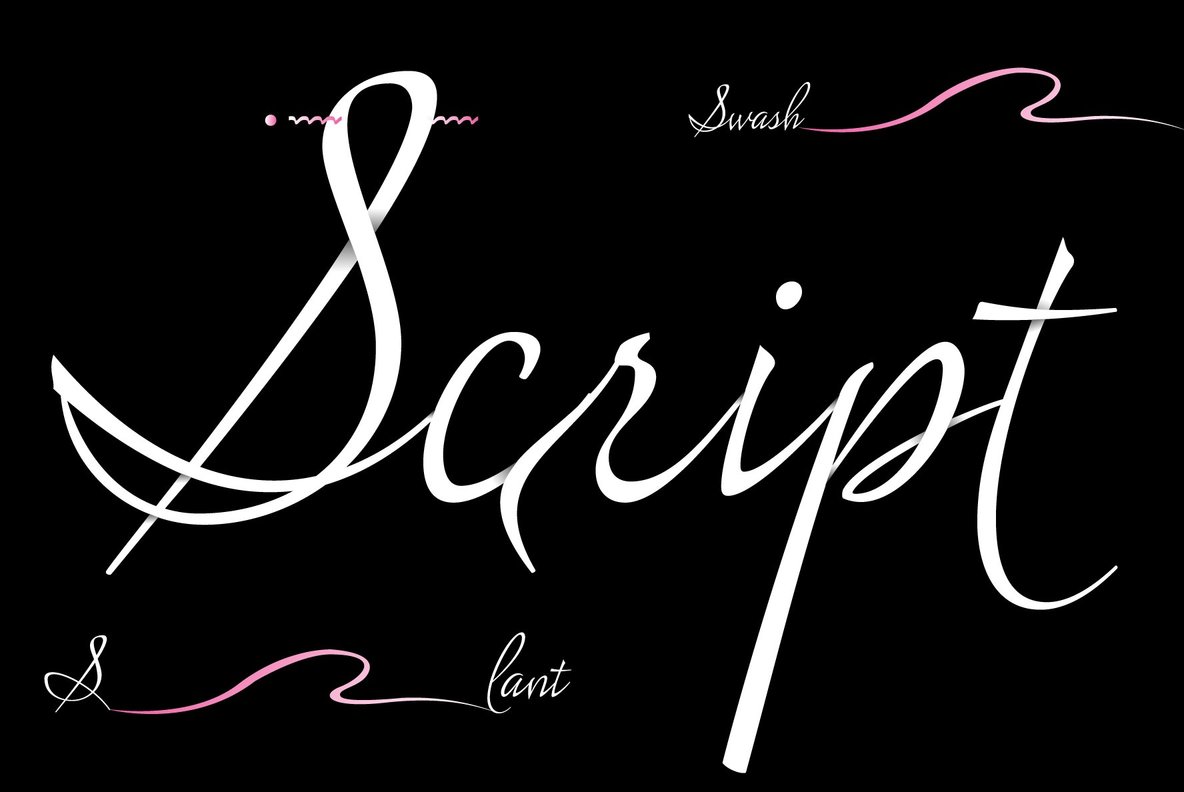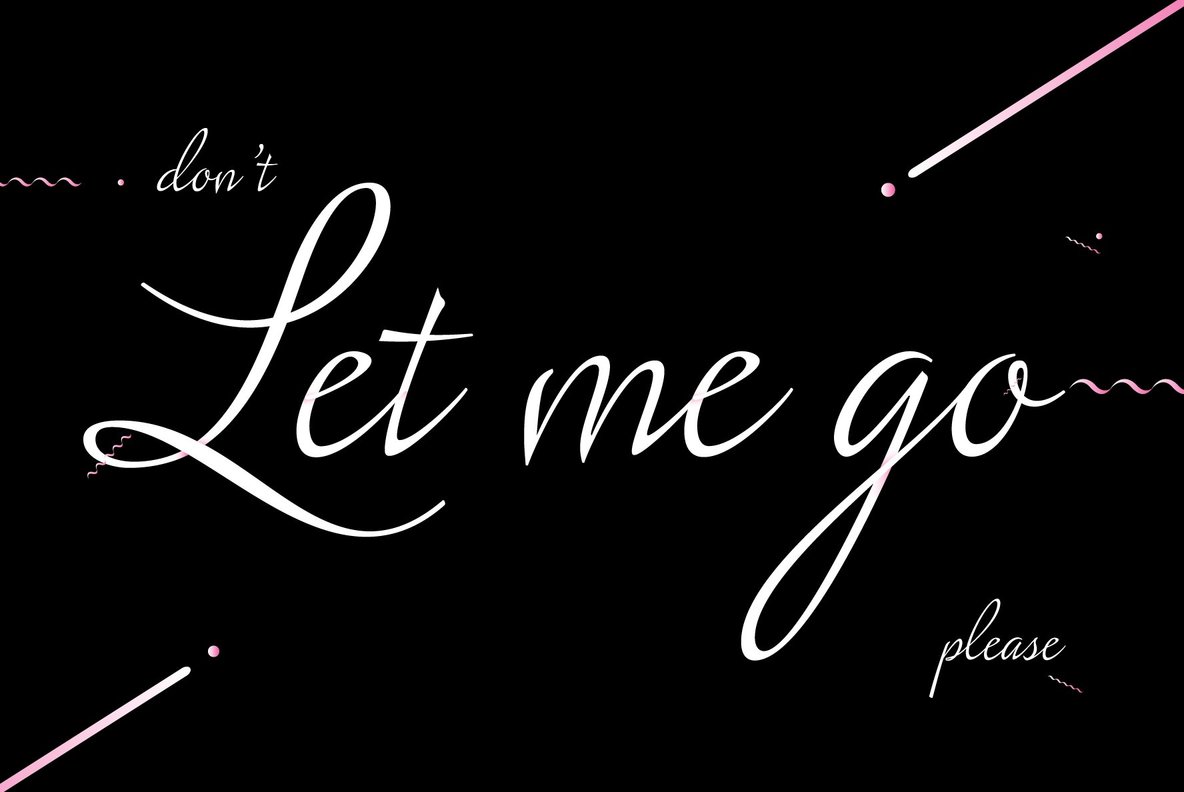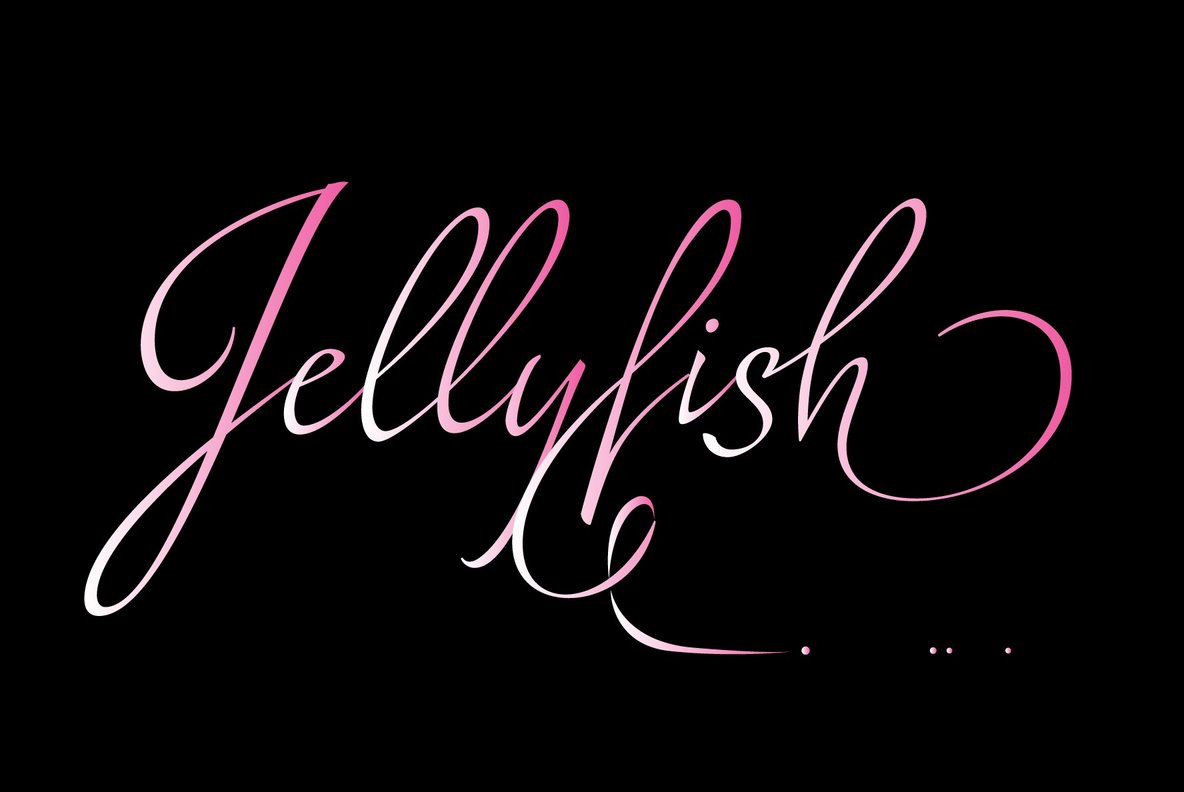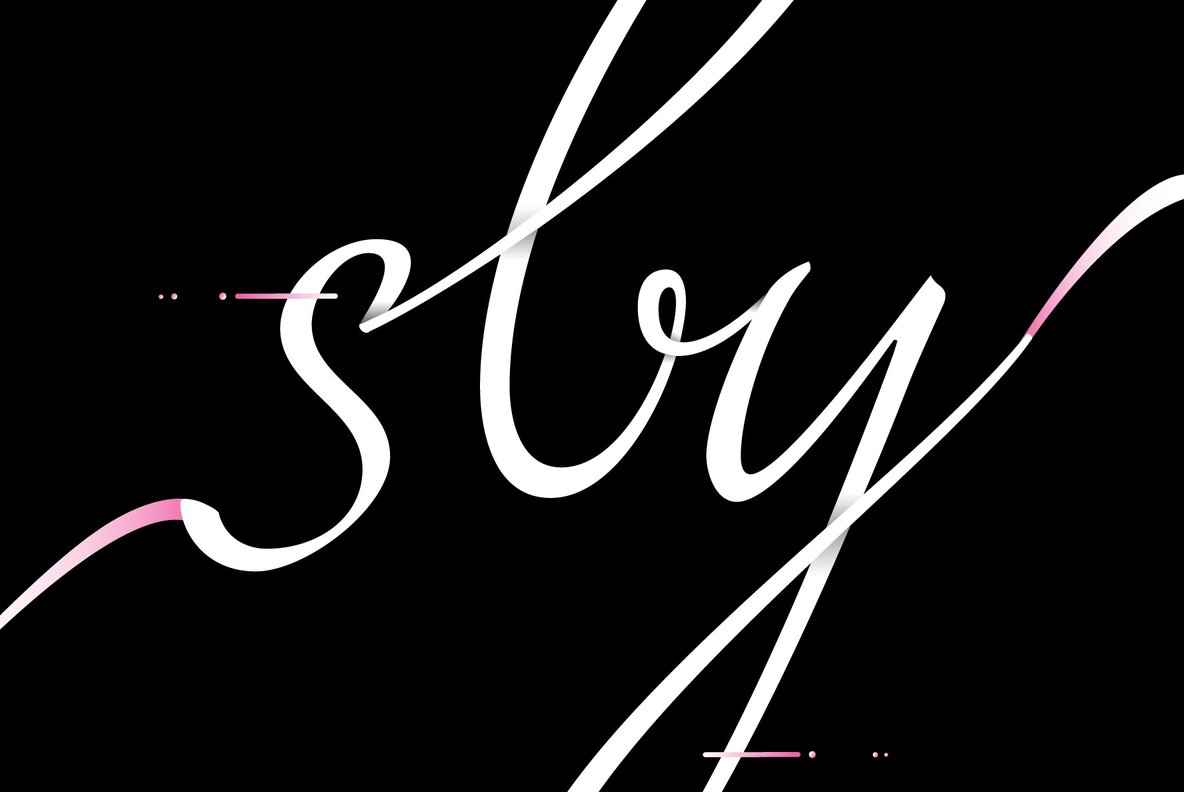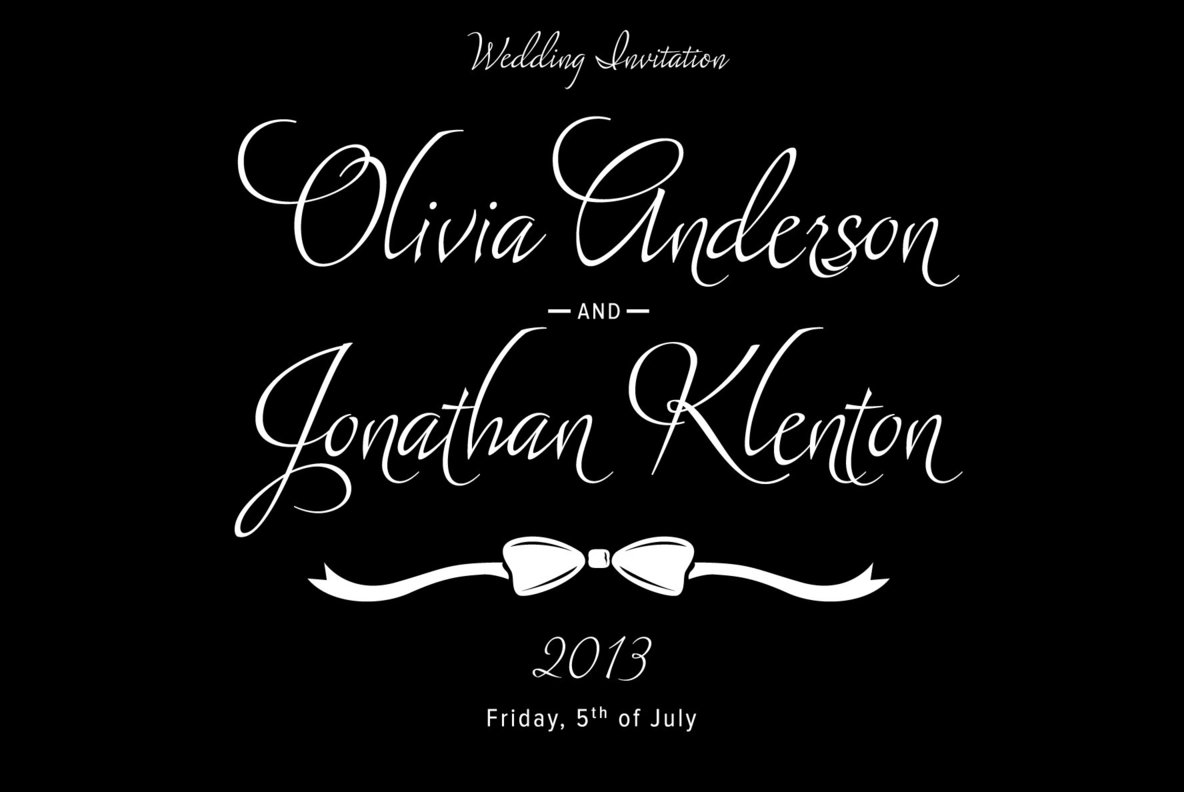
Foundry: Positype
Lush was a formal script until it had a few too many drinks and, as a result, loosened up a little bit. Harkening back to the handlettering of the 40s and 50s, Lush has evolved into a casual, but well-dressed script that maintains a rather aggressive rhythm. Transitions often whip back quickly, forcing the letters to reel from the movement and resolve efficiently. It is not as warm as some scripts, intentionally so, so as to distinguish it from its predecessors.
Type and lettering fans will revel in the options afforded to each character in some cases there are up to 15 different variations with multiple glyph recipes available to produce the most unique and fluid lettering combinations possible. An often overlooked segment of contemporary script fonts, the uppercase letters have at least 3 options to work with that mesh well with the 36 ornamental flourishes to add even further embellishment. In total, there are over 1,650 glyphs in the typeface that includes these OpenType options: Stylistic Alternates, Contextual Alternates, Swashes, Titling, Historical Forms, Initial Forms, Oldstyle Numerals and 3 additional Stylistic Sets. With this release, I have tried to provide as much flexibility and forgiveness within the typeface so the lettering enthusiast can have fun and explore thousands of iterations and it's pretty easy math to figure this out: with over 970 alternates and 270 ligatures, I intended this typeface to be one that keeps on giving.
One important fact to note this marks the first release of a smooth, non-brushed, non-textured script from me but it won't be the last. That said, I will have to admit that the brush has influenced many of the characters and their construction.